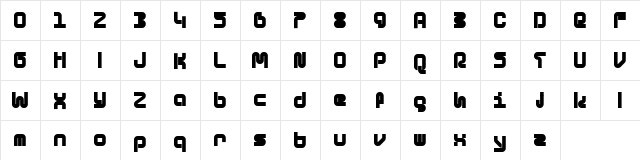
UltraTeens Ultra
Design Context for UltraTeens Typeface
UltraTeens is a composed and adaptable typeface that performs quietly and consistently across a wide range of design contexts.